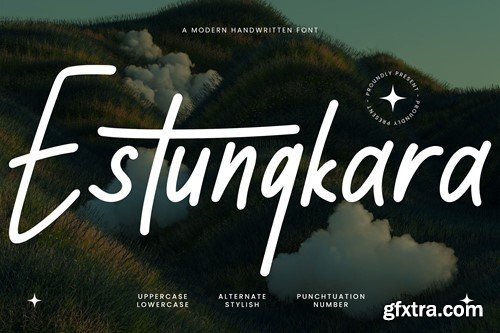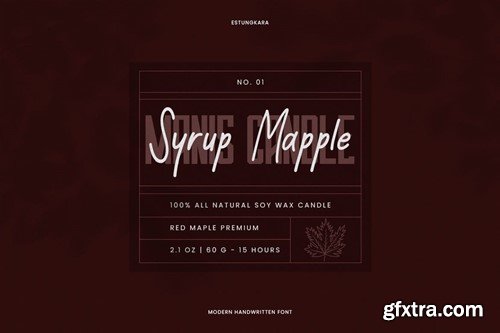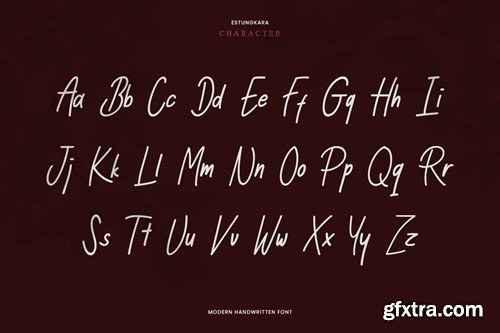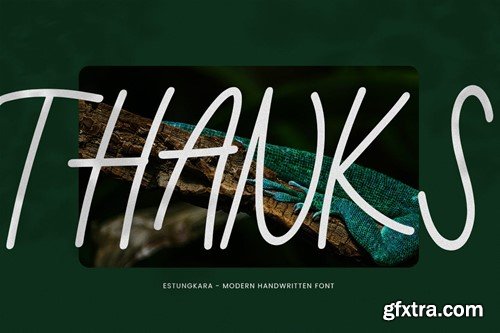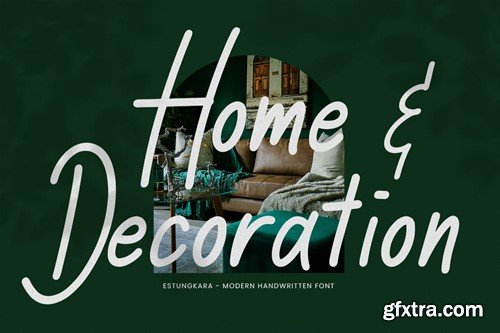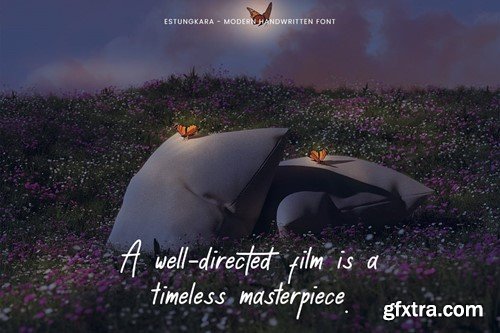
Estungkala - 一种现代单线手写字体 WRD7AVD
Estungkala - A modern monoline handwritten font
**Estungkala ** is an awesome with modern cutouts, and a dynamic slant. Ideal for Poster titles, menu flyer, Packaging, Logo and monograms or other modern dynamic text. Estungkala compares favorably with legibility and size, creating the effect of power. Designed as a fast and dynamic font, but with a slightly different font design, check it out and grab it right away. **Download Estungkala ** for your next project today. Featured: File Included : Thank you for checking and I hope you enjoy it. Always put your heart into it and don’t worry about trying. I hope you have as much fun using it as I did making it